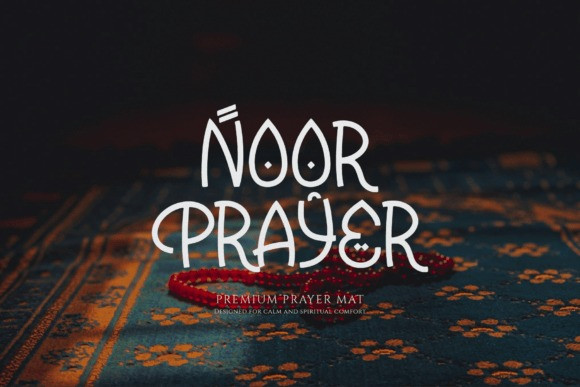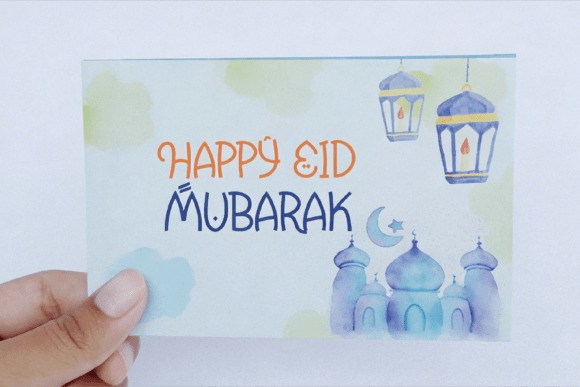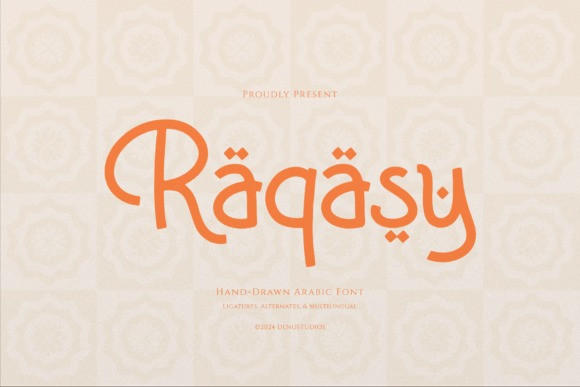
Raqasy Font
Raqasy Font a stunning hand-drawn Arabic-style typeface. This font masterfully blends the flowing, calligraphic tradition of Middle Eastern script with a friendly, artisanal touch. Featuring rounded terminals and a playful monolinear stroke, Raqasy radiates an approachable yet exotic energy. Its unique character is defined by expressive ligatures, decorative accents, and a bouncy baseline that gives every word a bespoke, hand-lettered feel.
Raqasy is an extraordinary choice for Middle Eastern-inspired branding, boutique restaurant menus, spiritual book covers, and high-energy cultural posters. It delivers a sense of professional warmth and legendary cultural grace to your visual identity, ensuring your headlines stand out with a signature and inviting presence.